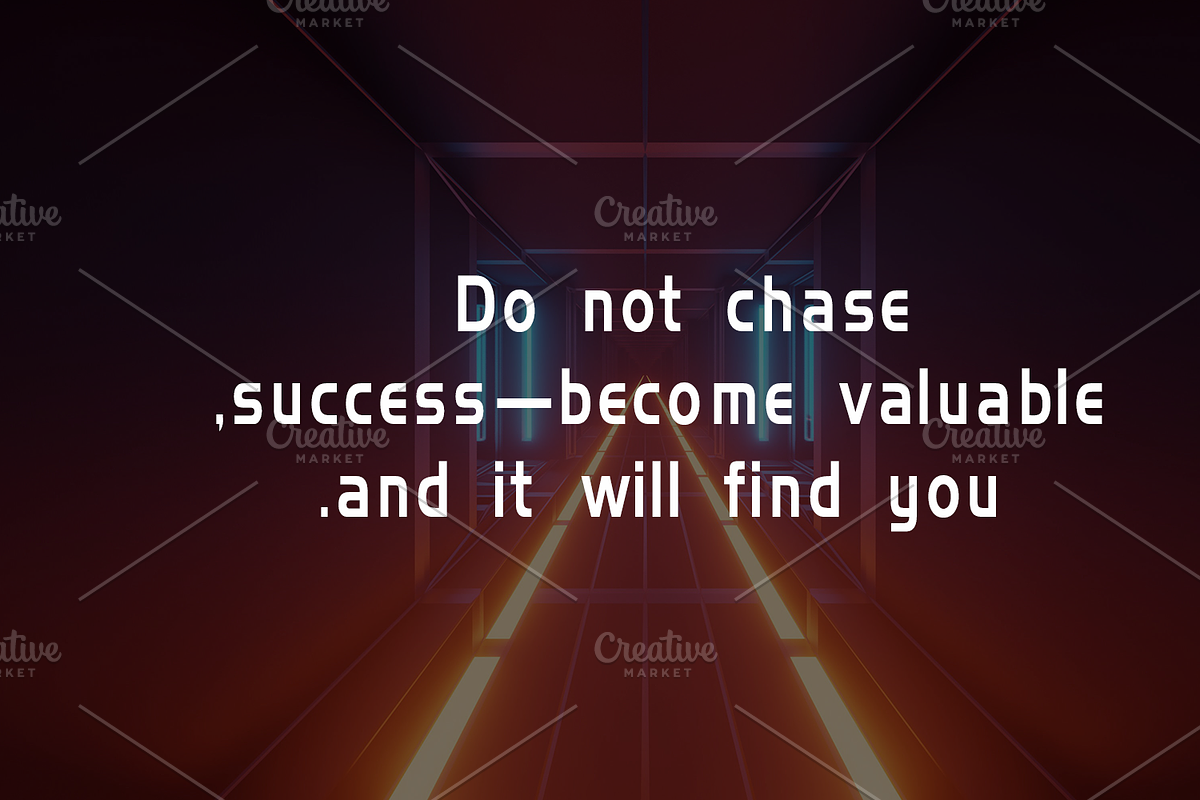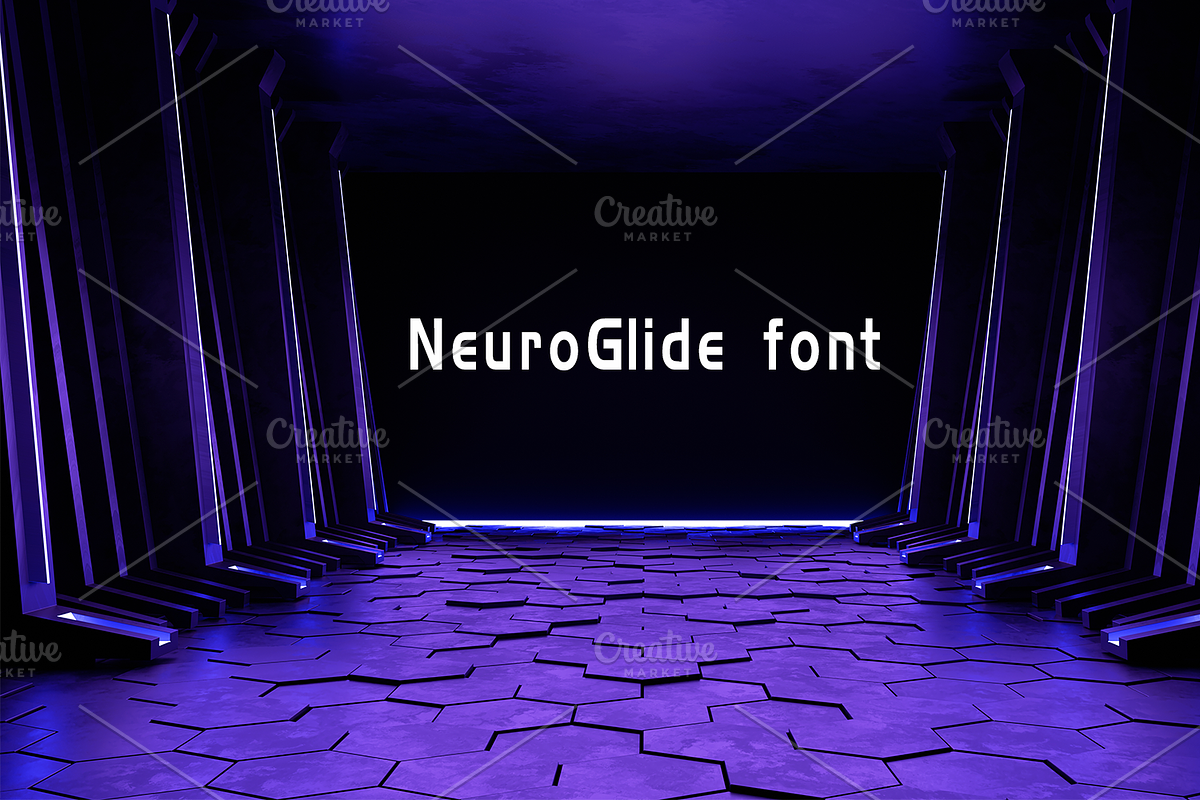
Introducing NeuroGlide — the typeface of tomorrow, delivered today. Sculpted with aerodynamic clarity and future-forward finesse, it speaks in silence and speed. Ideal for brands that dare to defy gravity and conventionality. Every letter feels lifted, like text in zero-G. NeuroGlide: Elevate your message. Ignite your vision.